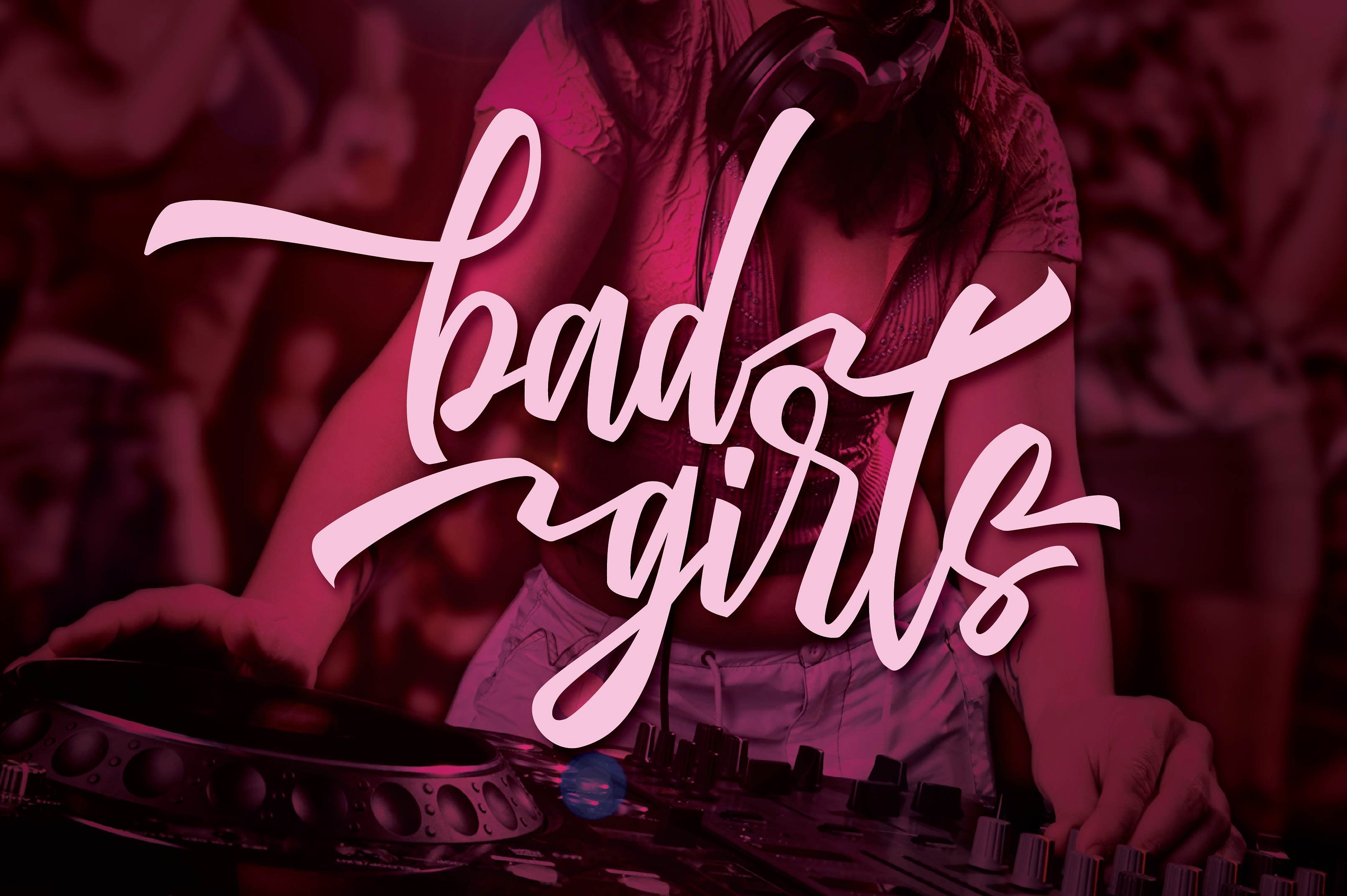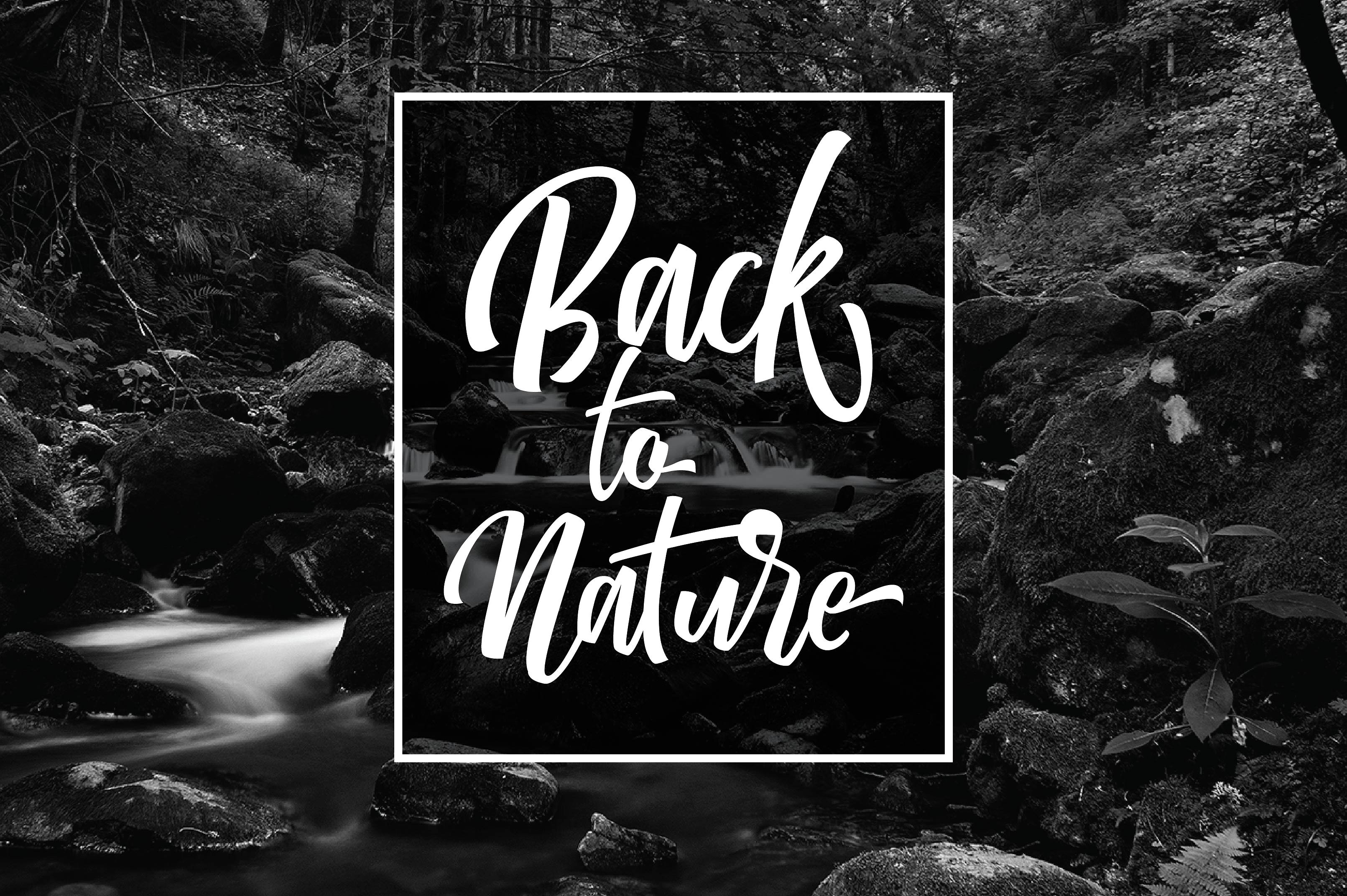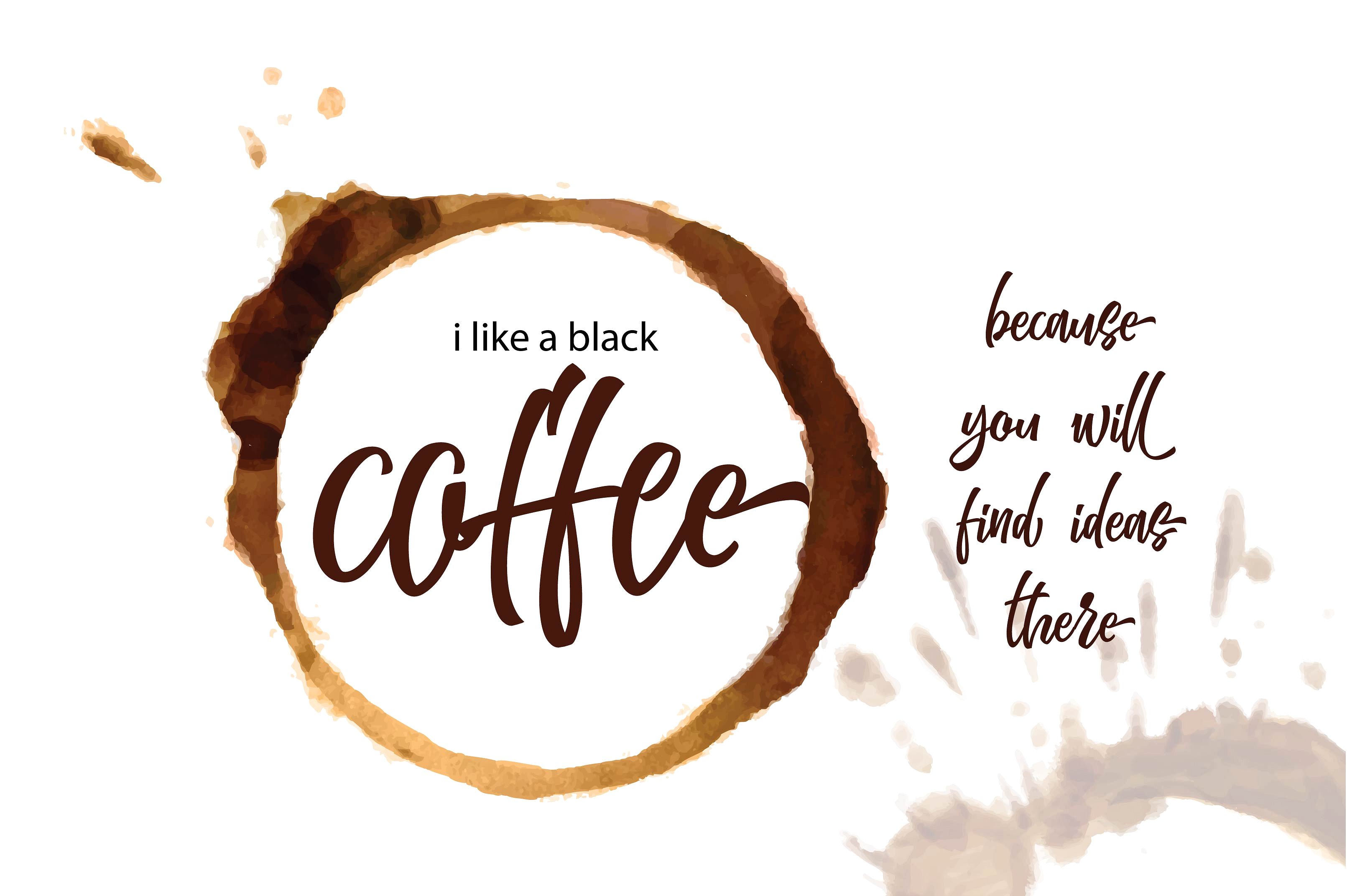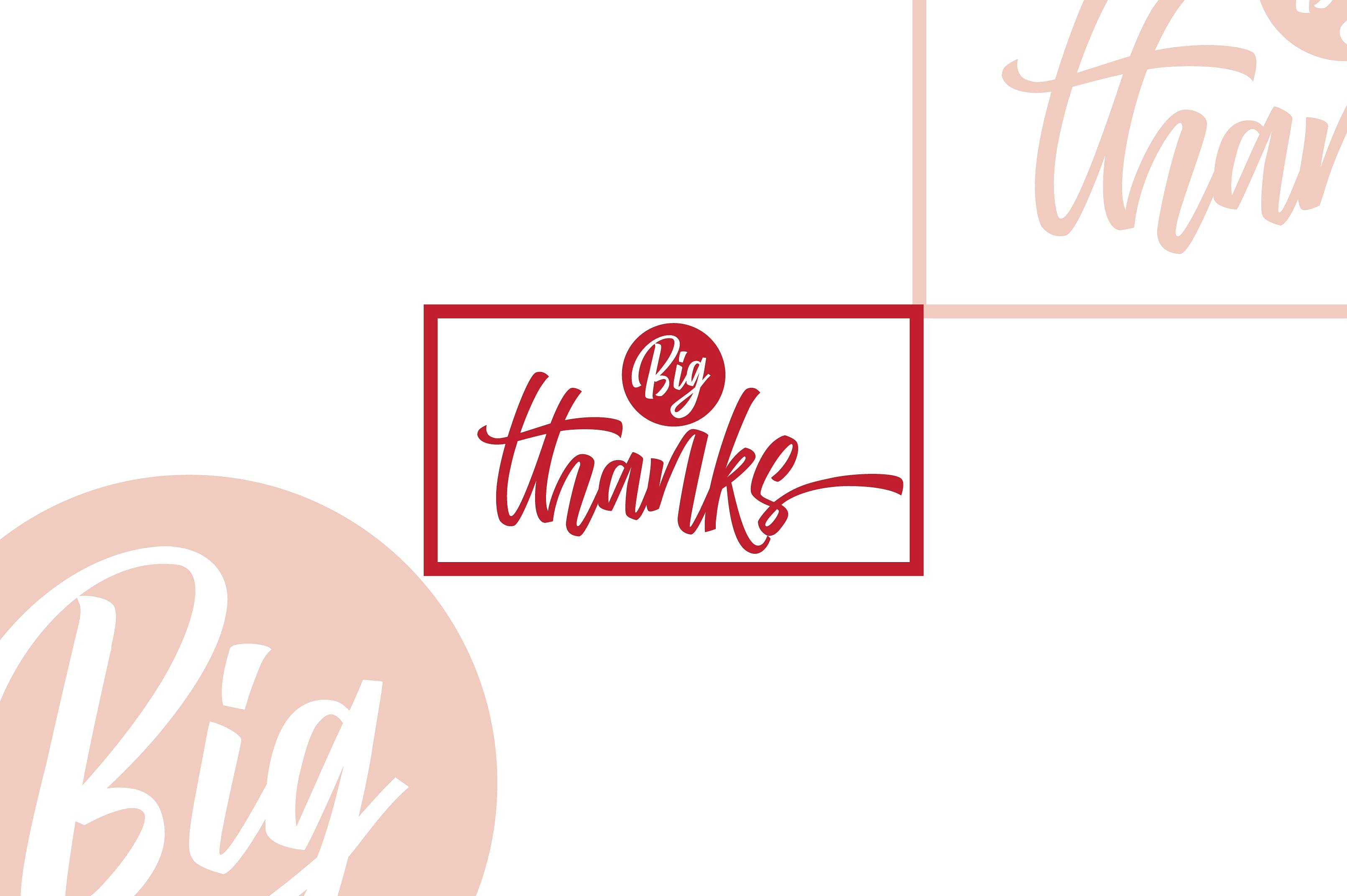
Introduction to Mattheo Font
As designers, we’ve all been there – stuck on a creative project, desperately searching for the perfect font to bring our vision to life. And then, like a breath of fresh air, we stumble upon that one font that makes everything click. For those of us who’ve been lucky enough to find it, we know the excitement and confidence that comes with using a font that truly elevates our design.
One such font that has captured the hearts of designers is the Mattheo Font, a stunning, smooth hand-lettered font that exudes boldness and strength. With its high-quality design and transparent background, this font is the ultimate design resource for any creative project. Whether you’re looking to make a statement or simply add a touch of sophistication to your work, the Mattheo Font is sure to leave a lasting impression.
Key Features of Mattheo Font
- Features a transparent background, making it easy to use in designs that require a clear background or overlay.
- Available in multiple weights, from Light to Bold, providing designers with flexibility in their creative projects.
- Designed to be easily readable and aesthetically pleasing, making it an excellent choice for creative projects that require a unique and eye-catching font.
Honest Review: Mattheo Font
As a designer, I’m always on the lookout for high-quality design resources that can elevate my creative projects. Recently, I had the chance to try out the Mattheo Font, and I’m excited to share my honest review with you.
- ✨ High-quality typography: The Mattheo Font boasts a beautiful, modern design that’s perfect for a variety of creative projects.
- ✨ Versatile: This font is incredibly versatile and can be used for both digital and print designs.
- ✨ Transparent background: The transparent background option is a game-changer for designers who need to create complex compositions.
- ⚠️ Limited font weights: While the font has a beautiful design, I found that the number of font weights available was a bit limited.
- ⚠️ Not suitable for tiny text: Due to the font’s modern design, I found that it didn’t work well for tiny text sizes.
Overall, I was impressed with the Mattheo Font and would definitely recommend it to designers who are looking for a high-quality, versatile font for their creative projects. And the best part? It’s available for a free download, making it an excellent design resource for anyone looking to upgrade their design game.
Mattheo Font is a high-quality design resource that can elevate your creative project. To get the most out of it, use it in combination with other design elements, such as images and graphics, to create a visually appealing design. You can also use it to create a consistent brand identity by applying it across all your marketing materials.
Mattheo Font is a versatile font that can be used in a variety of creative projects, including business cards, brochures, and website headers. It’s also a great choice for creating a free download or design resource that you can share with others.
Alternatives to Mattheo Font
Lato is a popular sans-serif font designed by Łukasz Dziedzic. It’s a high-quality, free download that’s perfect for creative projects requiring a clean and modern look. Lato is ideal for body text, headings, and titles, making it a versatile design resource. Compared to Mattheo Font, Lato is more minimalist and doesn’t have the same level of ornate details, but it’s easier to read and more versatile in terms of font sizes.
Montserrat is a geometric sans-serif font designed by Julieta Ulanovsky. It’s a free download that’s perfect for creative projects requiring a modern and urban look. Montserrat is ideal for titles, headings, and body text, making it a great design resource for creative projects. Compared to Mattheo Font, Montserrat is more geometric and doesn’t have the same level of ornate details, but it’s more versatile in terms of font sizes and has a more modern feel.